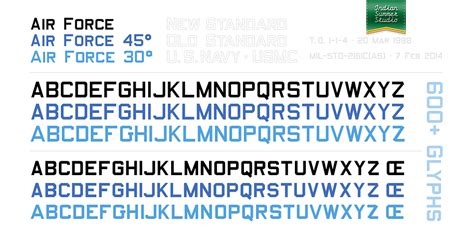
The Air Force font style is a sleek and modern typeface that embodies the strength, precision, and professionalism of the US Air Force.
When it comes to conveying a sense of power, authority, and strength, few things can match the visual impact of a bold and distinctive font style. And when you're talking about the United States Air Force, that impact is absolutely crucial. From the sleek lines of its aircraft to the precision of its maneuvers, the Air Force is all about projecting an image of professionalism and excellence.
That's why the Air Force font style is such a critical element of its branding. With its sharp angles and clean lines, this font conveys a sense of precision and attention to detail that is essential for any organization that operates at the highest levels of performance. Whether you're looking at a recruitment poster or a mission briefing, the Air Force font style commands attention and communicates a message of confidence and competence.
So what exactly makes the Air Force font style so effective? For one thing, it's highly legible even at small sizes, which is essential for a font that will be used in a variety of contexts. It's also incredibly versatile, able to convey both seriousness and approachability depending on how it's used. And perhaps most importantly, it just looks cool - which is no small feat when you're trying to inspire the best and brightest to join your ranks.
The Impact of Air Force Font Style
Fonts are a crucial element in any design, especially when it comes to the military. The U.S. Air Force is known for its distinct font style that represents its strength, power, and discipline. The font style of the Air Force has been developed over the years and has undergone numerous changes. In this article, we will explore the impact of Air Force font style.
A Brief History
The history of the Air Force font style goes back to 1947 when the U.S. Air Force was established as a separate branch of the military. The first Air Force logo featured a stylized eagle with outstretched wings and a star in the center. The font style used in the logo was simple and bold, with straight lines and sharp edges.
In the 1960s, the Air Force introduced a new logo that featured a sleeker and more modern design. The font style used in the logo was more refined, with curved lines and softer edges. This font style represented the Air Force's commitment to innovation and progress.
The Evolution of Air Force Font Style
The Air Force font style has undergone many changes over the years, reflecting the changing needs and priorities of the military. In the 1970s, the Air Force introduced a new font style that was more streamlined and modern. This font style featured bold lines and sharp edges, which represented the Air Force's strength and power.
In the 1990s, the Air Force introduced a new font style that was more sophisticated and elegant. This font style featured curved lines and softer edges, which represented the Air Force's commitment to innovation and progress.
The Importance of Air Force Font Style
The Air Force font style is an important element of the military's brand identity. It represents the Air Force's strength, power, and discipline. The font style is used in various applications, including logos, uniforms, and promotional materials.
The Air Force font style also plays a crucial role in communicating the military's values and mission. The font style conveys a sense of professionalism, dedication, and excellence, which are essential qualities for any military organization.
The Future of Air Force Font Style
The Air Force font style will continue to evolve in the future, reflecting the changing needs and priorities of the military. The font style will continue to represent the Air Force's strength, power, and discipline, while also reflecting its commitment to innovation and progress.
The Air Force font style will also continue to play a crucial role in communicating the military's values and mission. As the military faces new challenges and threats, the font style will help to inspire and motivate the men and women who serve in the Air Force.
Conclusion
The Air Force font style is more than just a design element – it is a symbol of the military's strength, power, and discipline. The font style has evolved over the years, reflecting the changing needs and priorities of the military. It will continue to evolve in the future, reflecting the military's ongoing commitment to innovation and progress.
The Air Force font style is an important part of the military's brand identity, representing its values and mission. It plays a crucial role in inspiring and motivating the men and women who serve in the Air Force, as well as communicating the military's message to the public.
Overall, the Air Force font style is a powerful and effective design element that has helped to establish the Air Force as one of the most respected and admired military organizations in the world.
- What font style does the Air Force use for its aircraft markings?
- The Air Force uses a stencil font style called Block for its aircraft markings. It is a simple and legible font that can be easily applied on different surfaces.
In conclusion, the Air Force uses different font styles for different purposes depending on their requirements. Whether it's for their logo, official documents, or aircraft markings, the Air Force chooses a font style that best represents their brand and meets their functional needs.